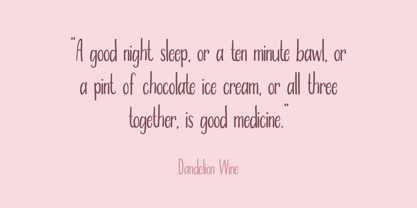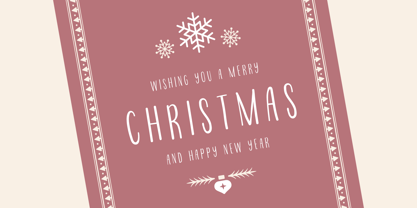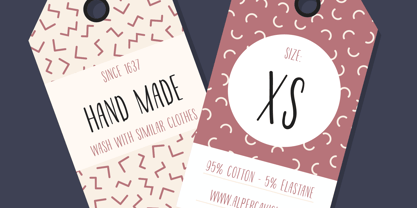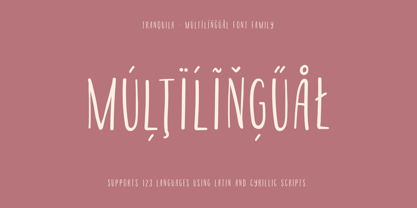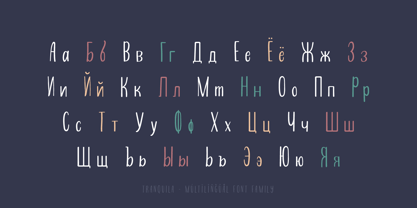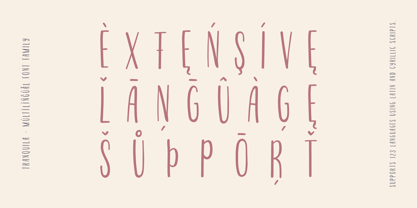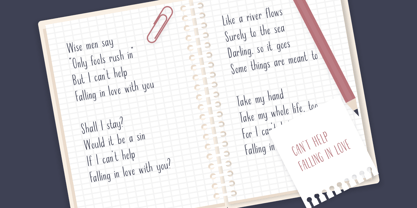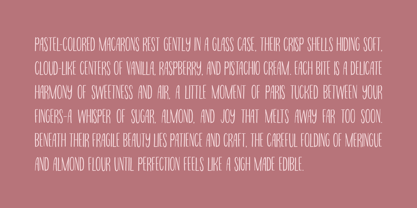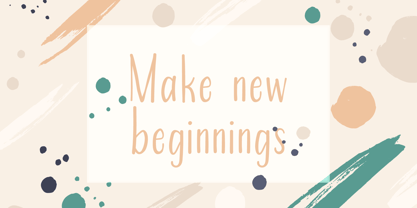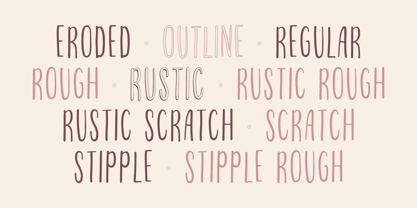
Tranquila
by AlperCakici
The Tranquila Font Family was designed by Alper Çakıcı and published by AlperCakici. Tranquila contains 20 styles and family package options. More about this family
Tranquila is a delicate hand-lettered font family that combines authentic handwritten charm with modern versatility. Featuring 20 unique styles — including Eroded, Outline, Regular, Rough, Rustic, Scratch, Stipple, and their matching italics — Tranquila offers endless creative flexibility for logos, branding, packaging, magazines, posters, and more. Designed in a thin handwritten style, it brings a natural, personal touch to both print and digital projects. With full multilingual support for 123 languages including Cyrillic, Tranquila ensures seamless global communication while maintaining a consistent, elegant aesthetic. Perfect for designers seeking a modern yet organic handwritten font family, Tranquila balances warmth, texture, and professionalism in every stroke."
Designers: Alper Çakıcı
Foundry: AlperCakici